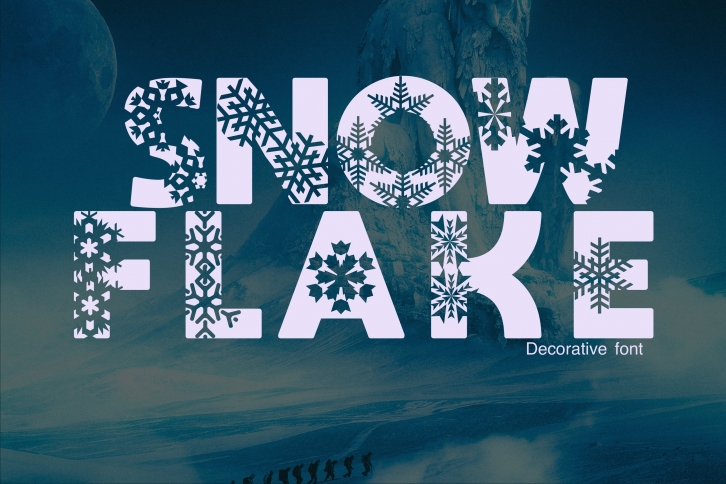
Snowflake is a trendy and unique font with an authentic style. It was designed by PoyJazz Design and it's a great choice for creative people who need such a font. It was released on November 3, 2022 and the file size is 10.1 MB. Snowflake will add an organic vibe to any design idea!